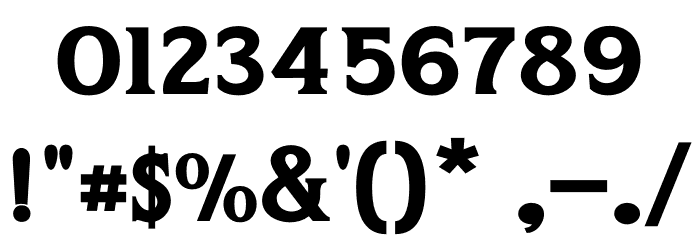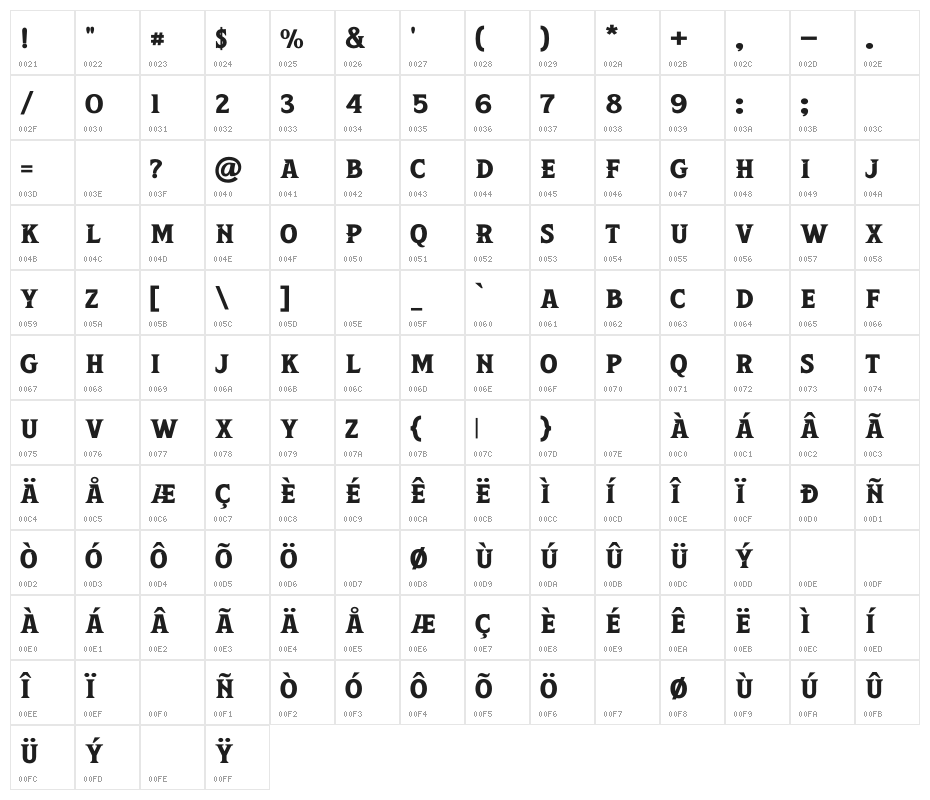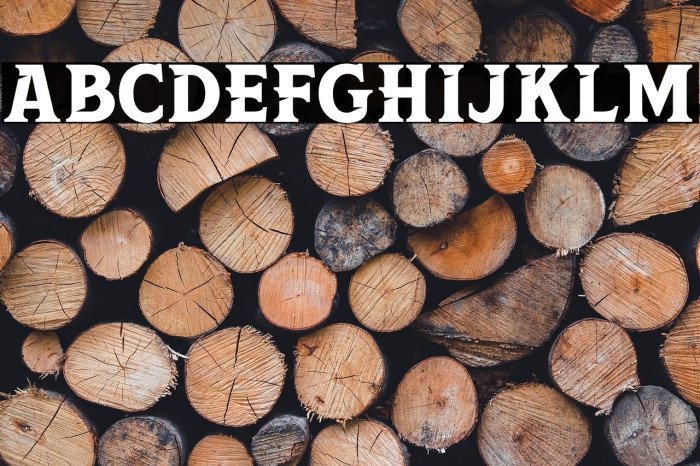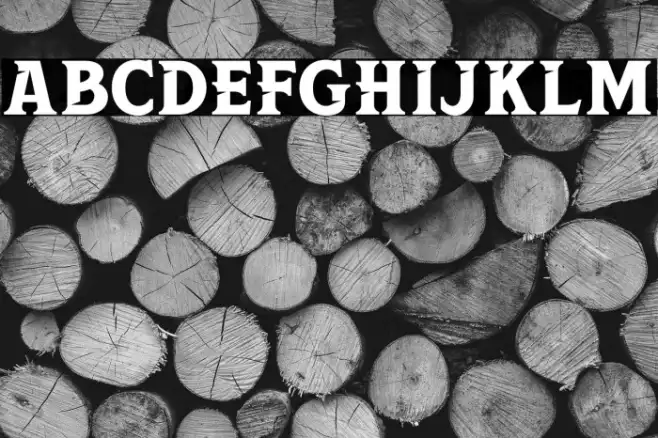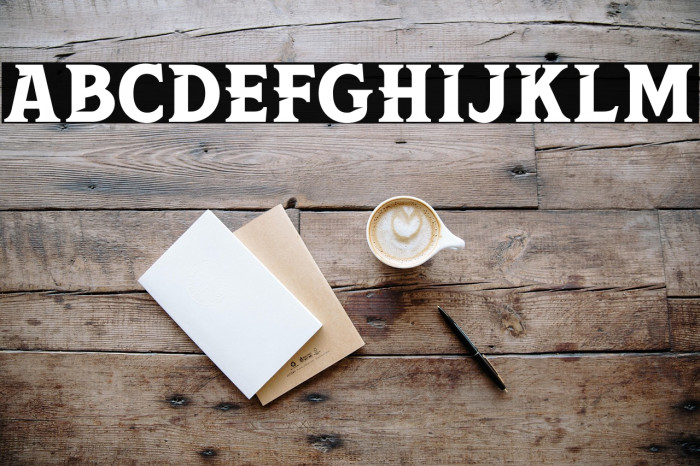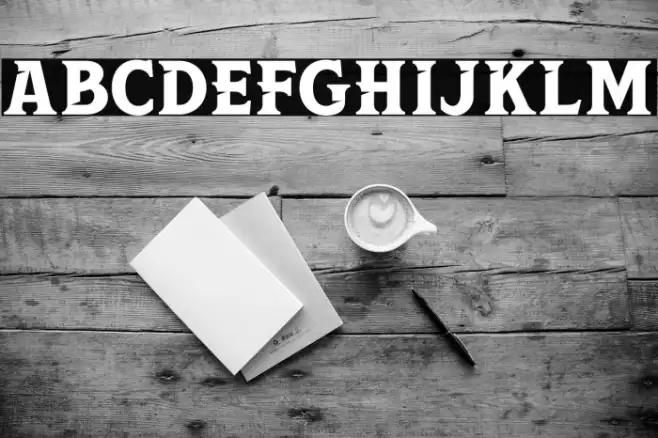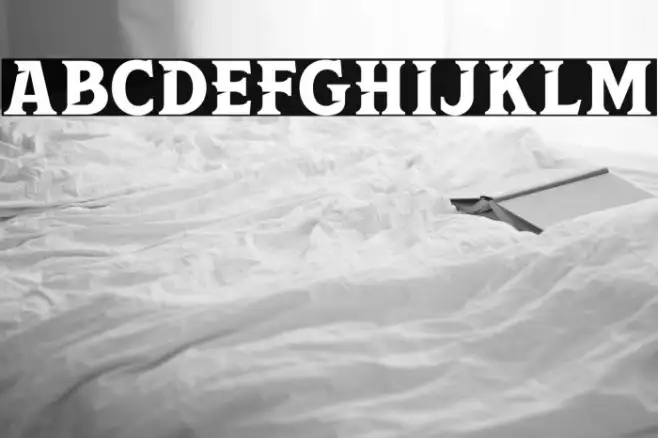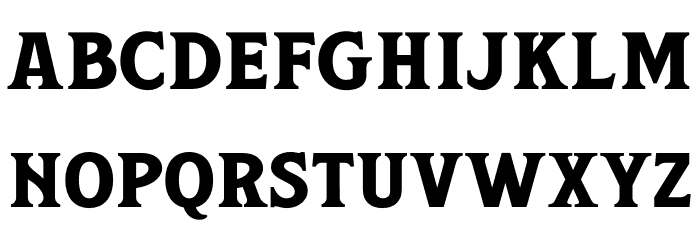
Leviathan Font
Leviathan Description
This font features a bold and commanding presence with its thick, sturdy strokes and pronounced serifs. The characters are well-defined, with a strong emphasis on vertical lines, giving it a robust and authoritative look. The uppercase letters are particularly striking, with a sense of grandeur and formality. The lowercase letters maintain the same boldness, ensuring consistency across text. Numbers are equally bold, making them stand out clearly. Special characters are designed to match the overall bold aesthetic, ensuring they integrate seamlessly with the rest of the font. This font is ideal for making a strong visual impact.
| Proposed Projects | Ideal for headlines, posters, branding, and any project requiring a bold, impactful typeface. |